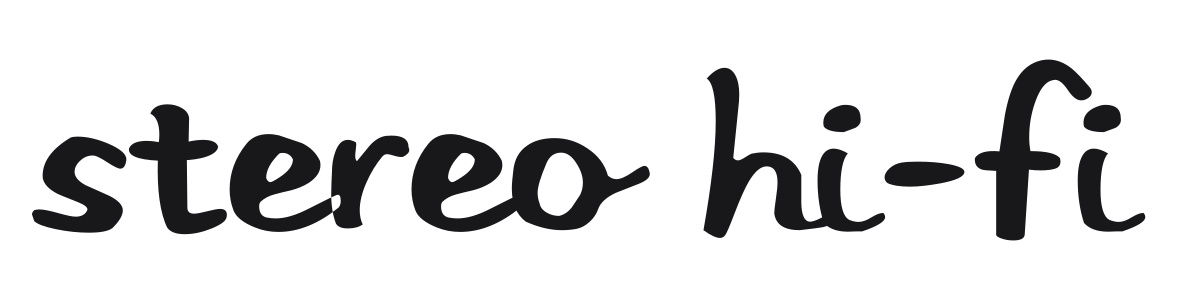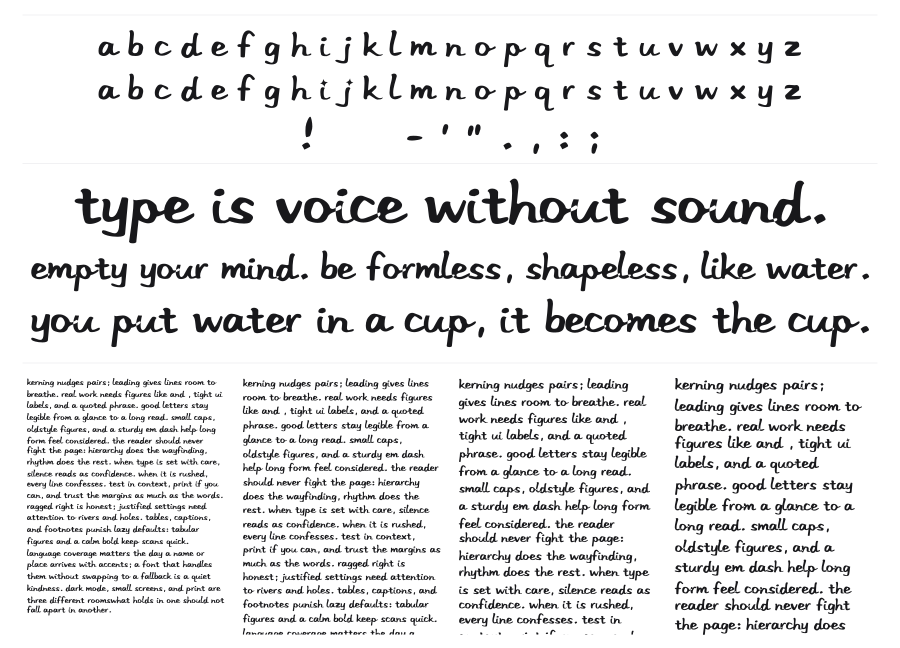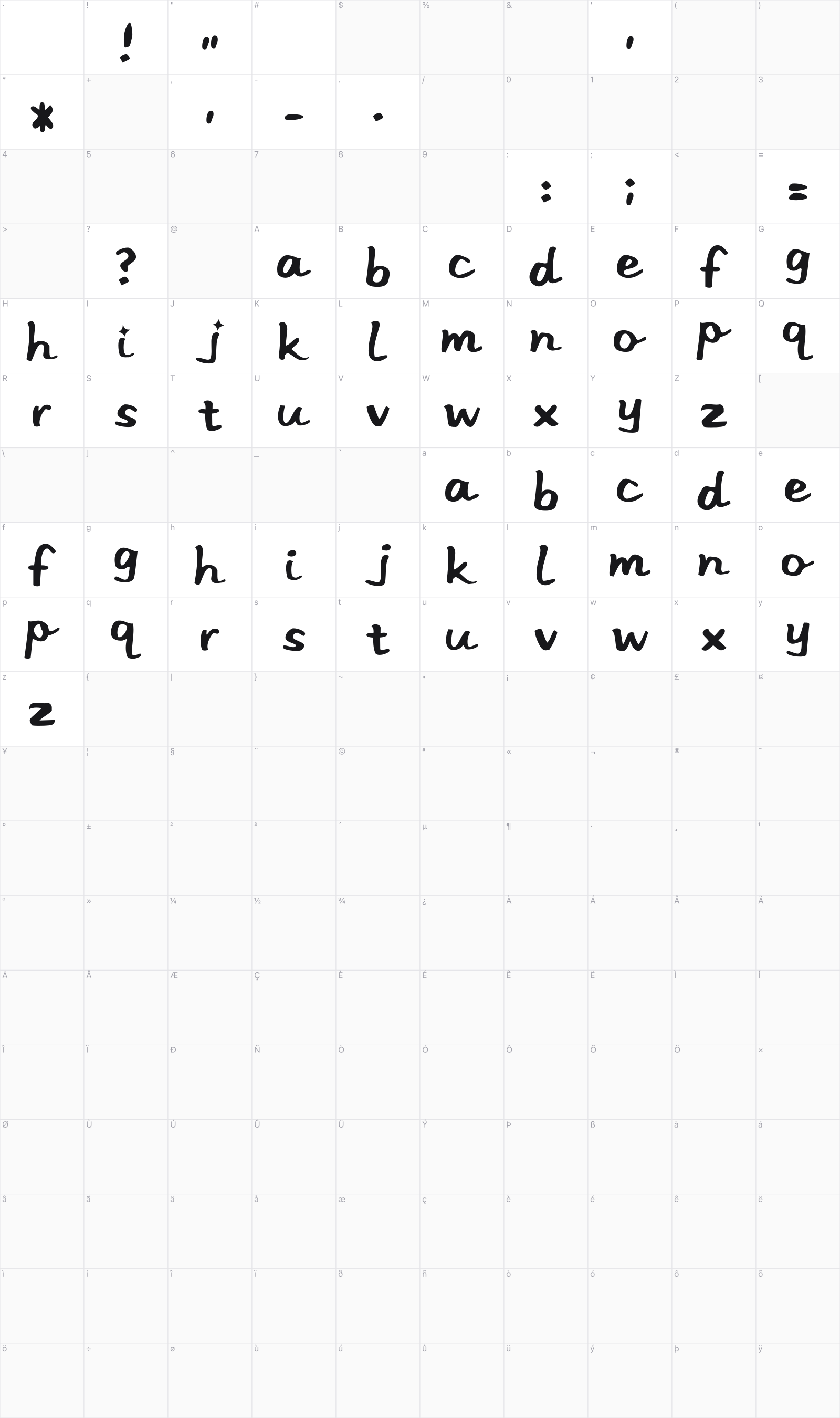
Stereo Hi-Fi
Stereo Hi-Fi is a bold brush script digitized from a 1945 advertisement for train-at-home stereo repair courses. The vectorization artifacts were kept intentionally, giving the strokes a raw, textured quality that smooth calligraphic scripts lack. It carries the loose, confident energy of hand-lettered mid-century American commercial art.